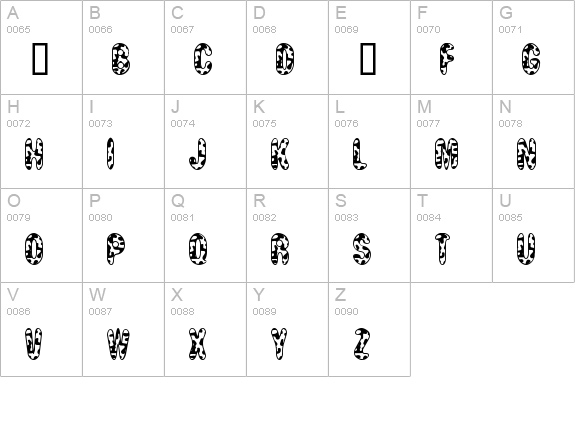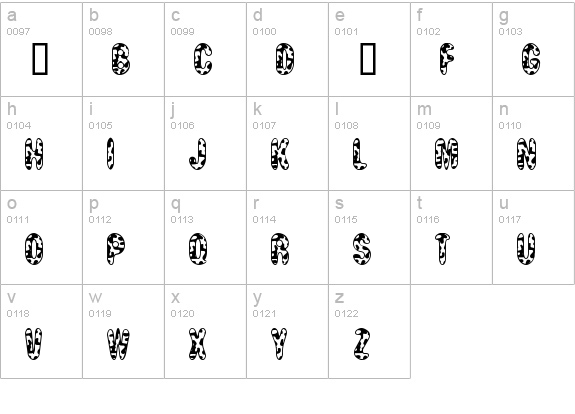
MooCowSW Font Details
Introducing MooCowSW font, a delightful and whimsical typeface perfect for adding a touch of fun to your projects. With its playful curves and charming design, MooCowSW brings a sense of joy and creativity to any text it graces. This font is not only eye-catching but also versatile, making it ideal for a wide range of design applications. The best part? MooCowSW is available for free download at FontsMarket.com, allowing you to easily access this unique and engaging font for all your creative endeavors. Whether you're designing invitations, crafting branding materials, or simply looking to add a touch of personality to your projects, MooCowSW is sure to make a memorable impression. Don't miss out on the opportunity to enhance your designs with the quirky charm of MooCowSW font. Download it today and let your creativity run wild!